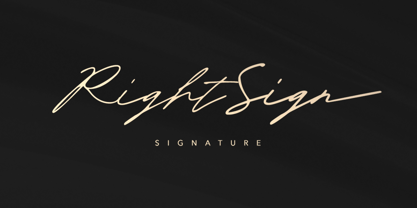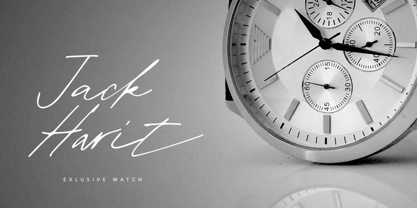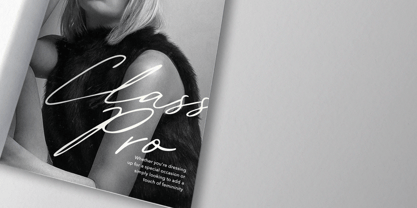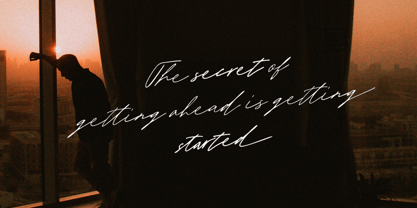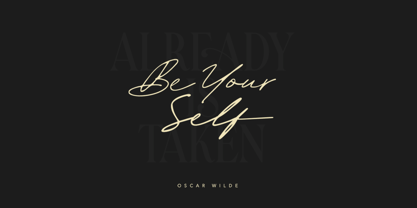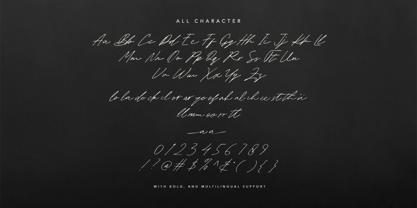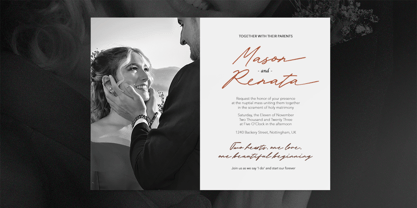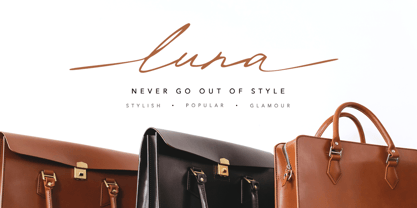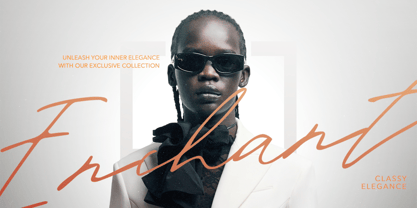
Right Sign
by Bale Type
The Right Sign Font Family was designed by Sarid Ezra, Dzikrul Aulia and published by Bale Type. Right Sign contains 2 styles and family package options. More about this family
Right Sign is a handwritten signature with ligatures and alternates. Come with Regular and Bold, you can choose that suitable for what your needs. You can use this font for any purposes, such as digital signature, logo, branding, quotes, and also for complimentary of your sans or serif font. This font also support multi language!
Designers: Sarid Ezra, Dzikrul Aulia
Foundry: Bale Type